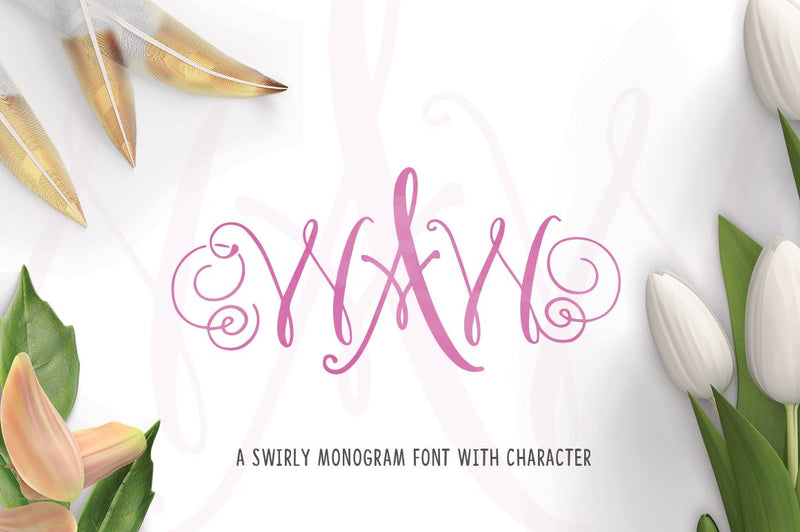
A WAW Monogram Font
The WAW Font Family is a monogram set of four different fonts, that when combined create beautiful swirling monogram's. Combine the left character of your choice with either a regular or fancy central character and the right font to create stunning Monograms.